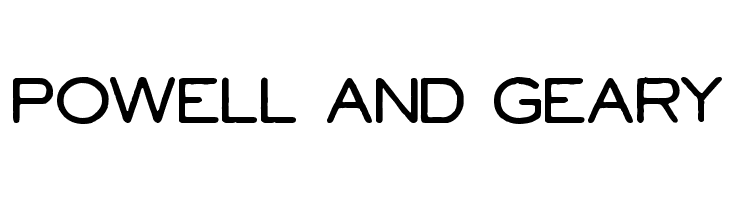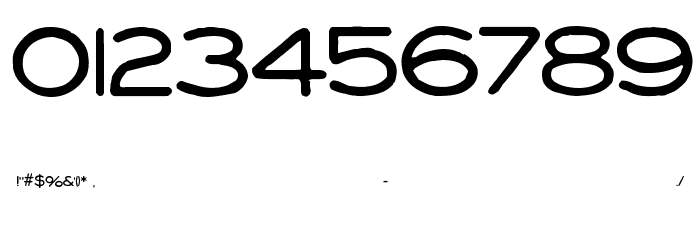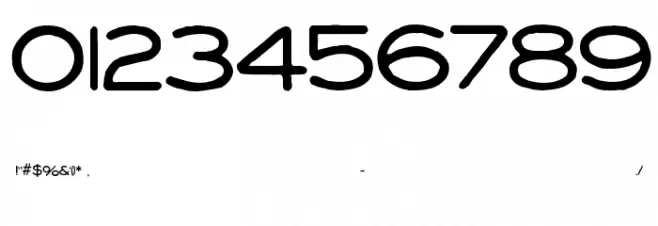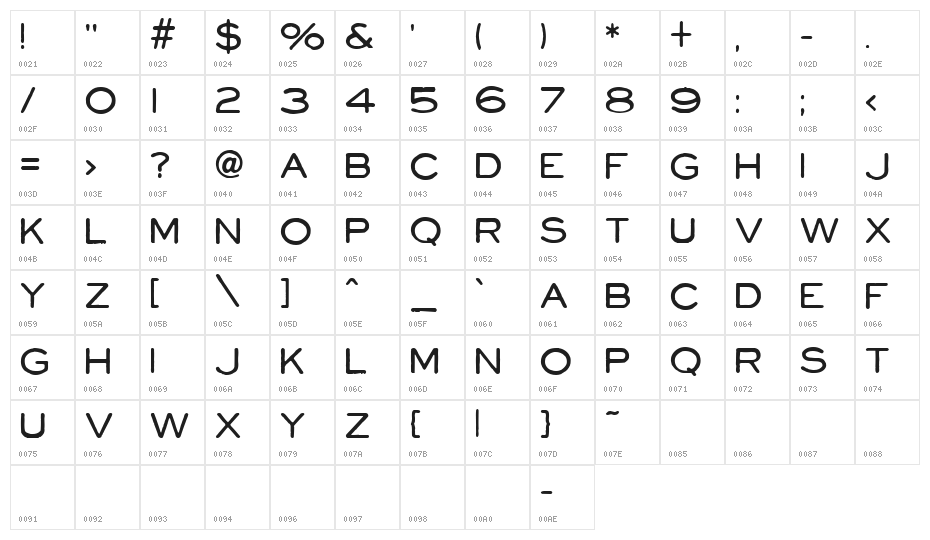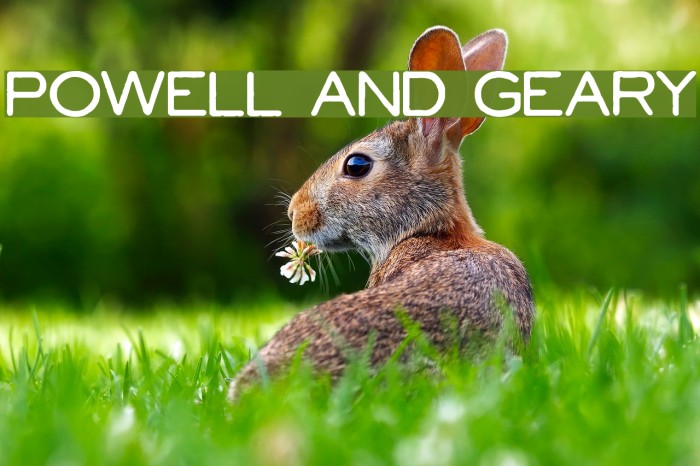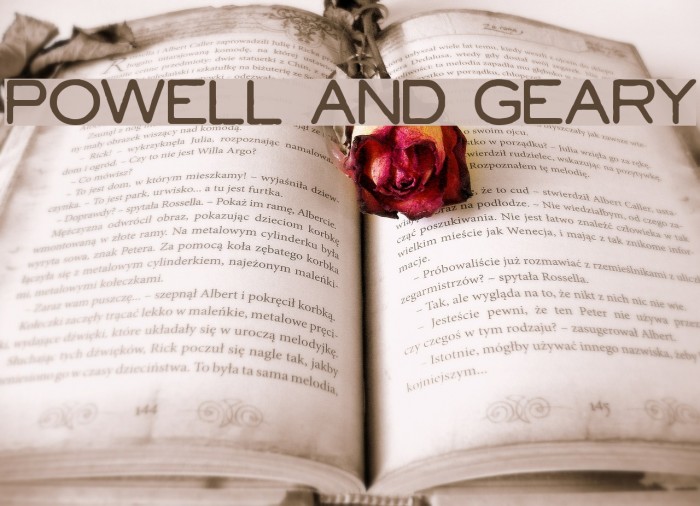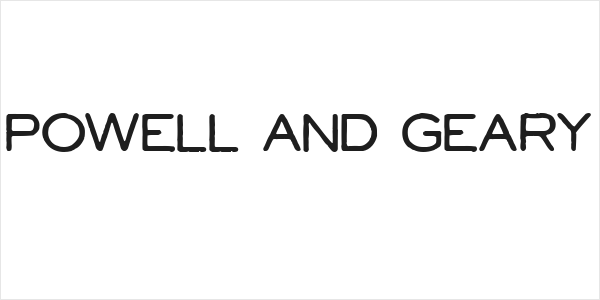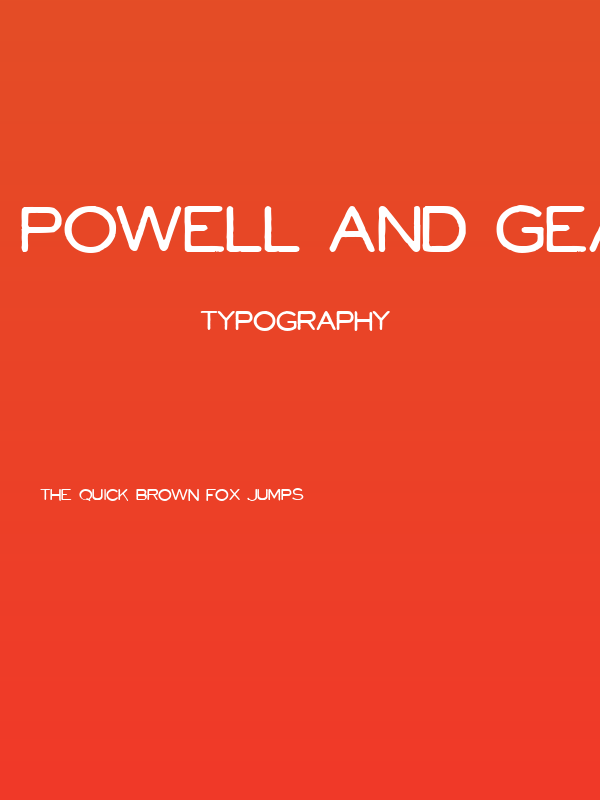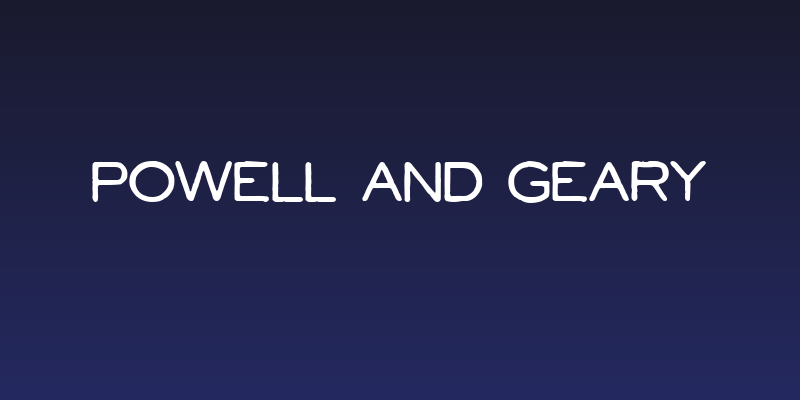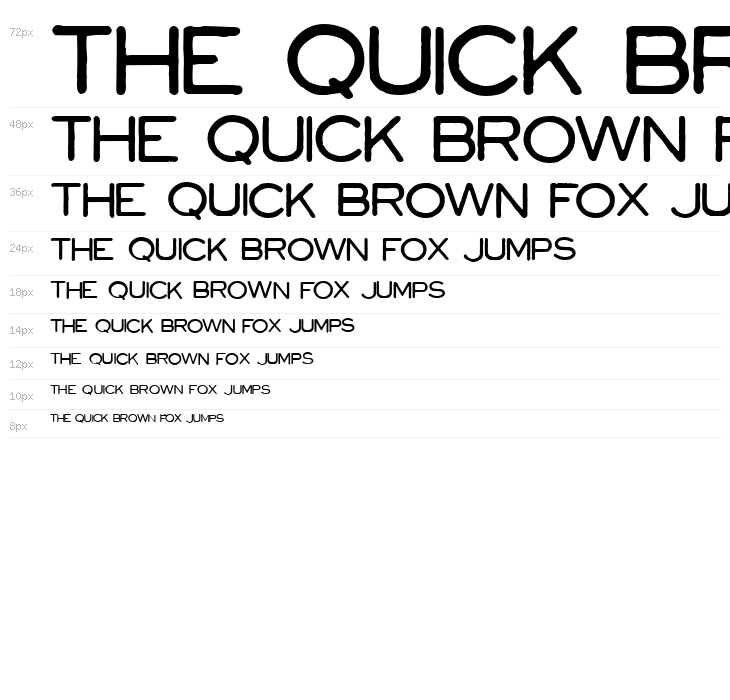
Powell and Geary Font
Powell and Geary Description
This font features a modern and clean sans-serif style with rounded edges that give it a friendly and approachable appearance. The characters are evenly spaced, providing a balanced and harmonious look. The uppercase letters are bold and prominent, making them ideal for headlines and titles. The lowercase letters maintain the same rounded aesthetic, ensuring consistency across the typeface. Numbers are clear and legible, with a slight geometric influence that adds to the overall modern feel. Special characters are designed to match the style, ensuring they integrate seamlessly with the rest of the font.
Use CaseHeadlines, Logos, Branding
Proposed ProjectsIdeal for branding, web design, advertising, and any project requiring a modern and friendly typeface.